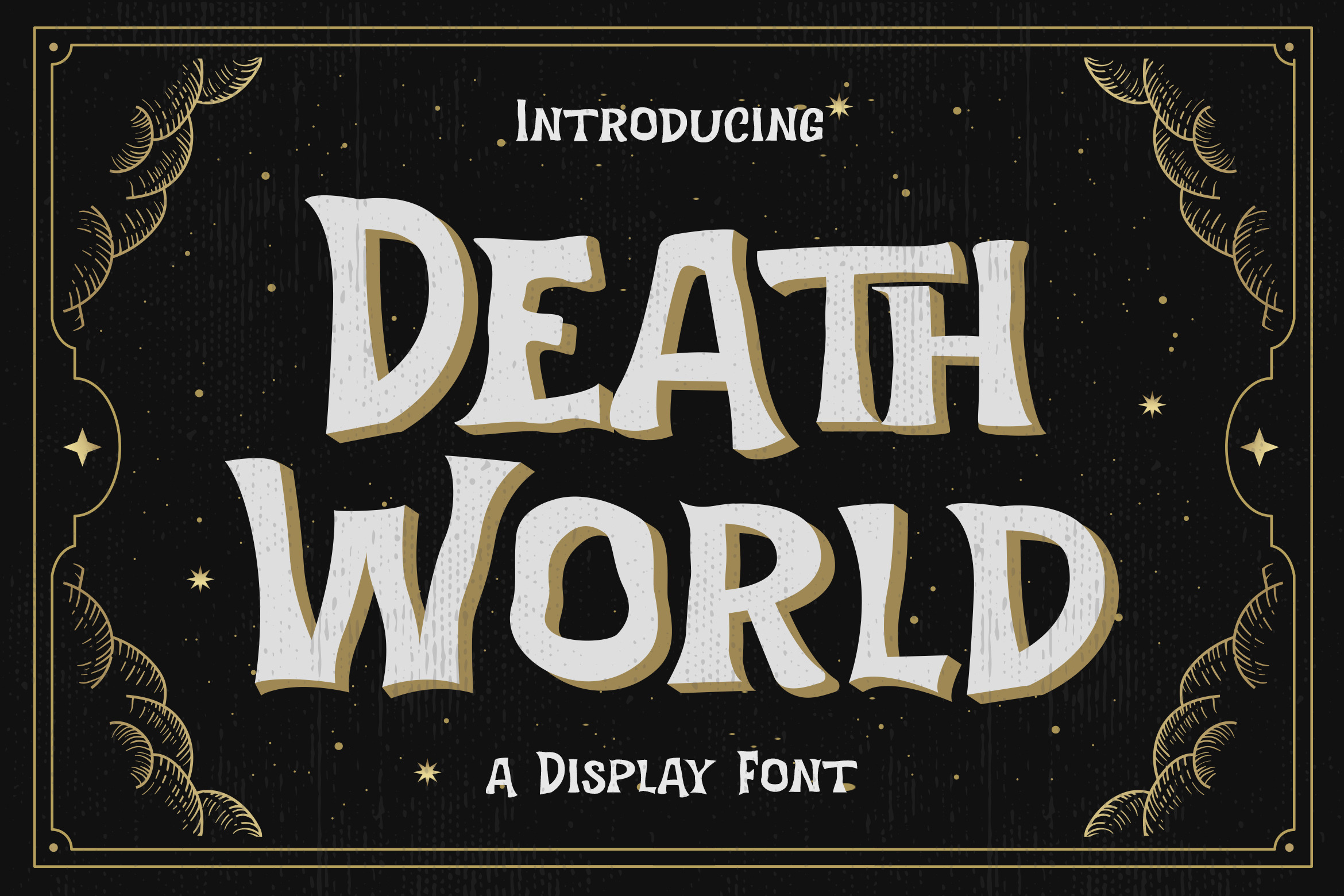
Death World - A Display Font
Death World is a fancy display font. It embodies playfulness and authenticity and is the perfect choice for any children activity, fantasy, game font, party invitation, or school project. Add this fun display font to your designs and notice how it makes them come alive!